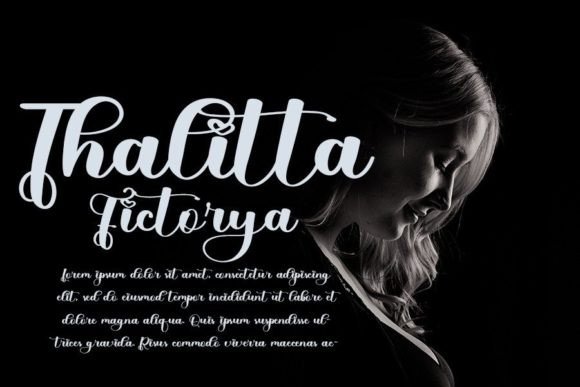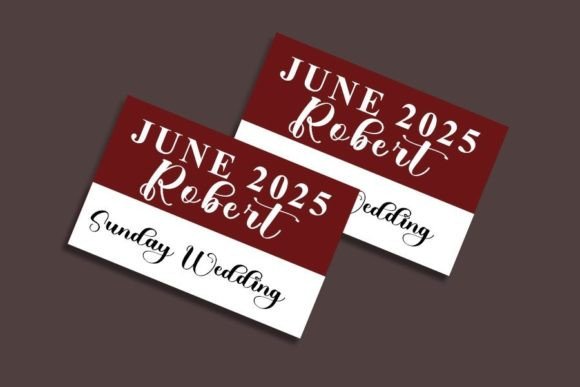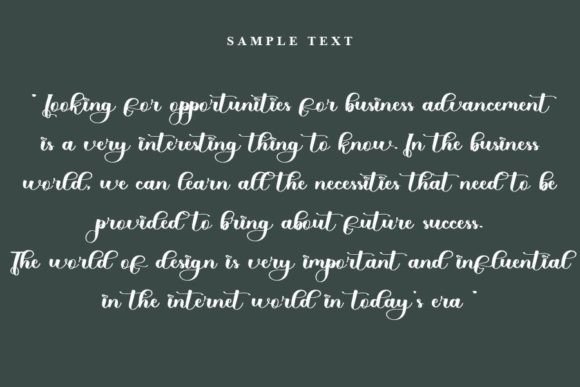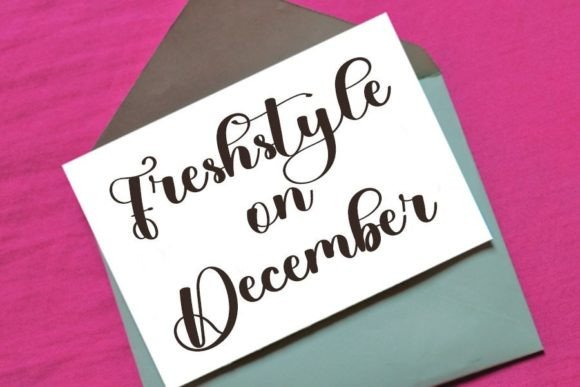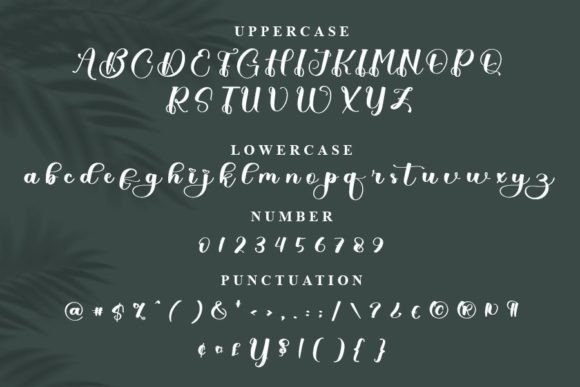
Introducing Body Font: Elevate Your Designs with Timeless Elegance
Are you on the hunt for a font that exudes sophistication and style? Look no further than Body Font, a stunning handwritten typeface that brings a touch of classic calligraphy to the modern era. With its impeccable form and balanced design, Body Font is the perfect addition to any project that demands elegance and refinement.
The Inspiration Behind Body Font
Body Font draws inspiration from the timeless world of classic calligraphy, where the art of beautiful handwriting meets the precision of typography. The result is a font that not only pays homage to the past but also feels refreshingly contemporary. Whether you’re working on a branding project, a wedding invitation, or a packaging design, Body Font’s unique charm is sure to captivate your audience.
What Makes Body Font Stand Out
- Contemporary Atmosphere: Body Font boasts a modern aesthetic that’s perfect for designers looking to infuse their work with a sense of current style.
- Impeccable Form: Each letterform in Body Font is meticulously crafted to ensure a high level of legibility and beauty, making it suitable for a wide range of applications.
- Balanced and Varied: The font features a thoughtful balance of thick and thin strokes, along with a range of letterforms that add visual interest to any text.
Body Font’s versatility makes it an excellent choice for various design projects, including:
- Branding and Logo Design: Create a lasting impression with a custom logo that showcases the elegance of Body Font.
- Wedding Invitations and Stationery: Add a touch of romance and sophistication to your wedding materials with this beautiful font.
- Packaging Design: Elevate your product packaging with a font that communicates luxury and refinement.
- Digital and Print Media: Use Body Font in your digital and print projects, such as magazines, brochures, and social media graphics, to add a level of sophistication.
Tips for Using Body Font Effectively
To get the most out of Body Font, consider the following tips:
- Pair it with a Sans Serif Font: Combine Body Font with a clean sans serif font for a striking contrast that adds visual interest.
- Experiment with Font Sizes: Play with different font sizes to create a hierarchy of information and add emphasis to key messages.
- Use it for Headings and Titles: Take advantage of Body Font’s elegant design by using it for headings and titles, and reserve a simpler font for body text.
Body Font is a stylish and sophisticated handwritten font that brings a touch of classic calligraphy to the modern era. With its impeccable form, balanced design, and contemporary atmosphere, it’s the perfect choice for designers and crafters looking to elevate their projects. Whether you’re working on a branding project, a wedding invitation, or a packaging design, Body Font is sure to enhance the beauty of your work.